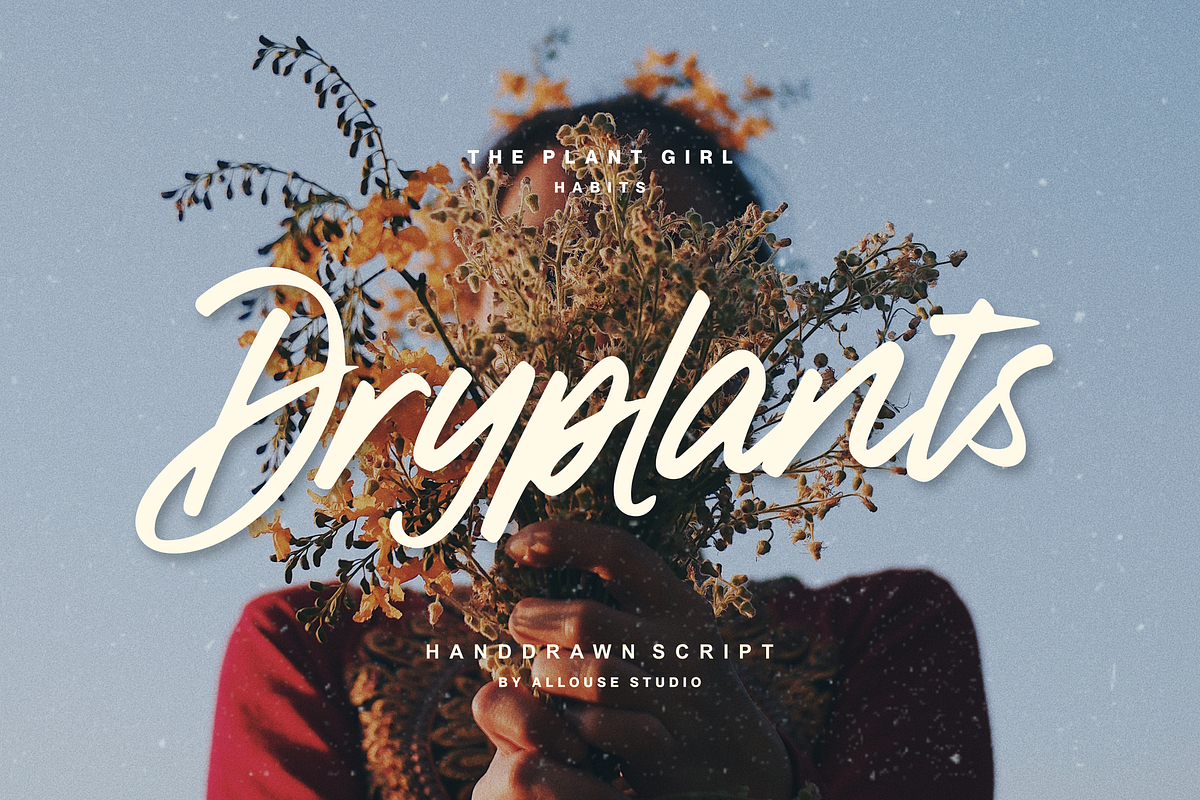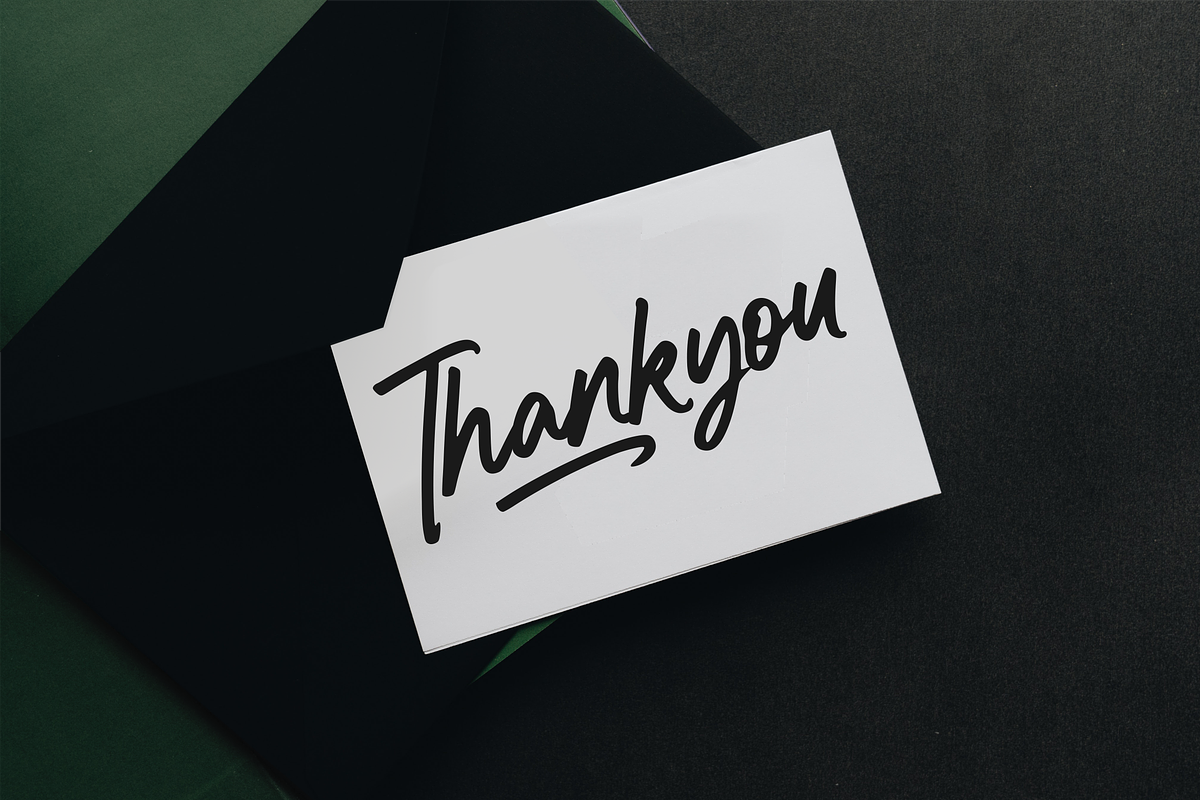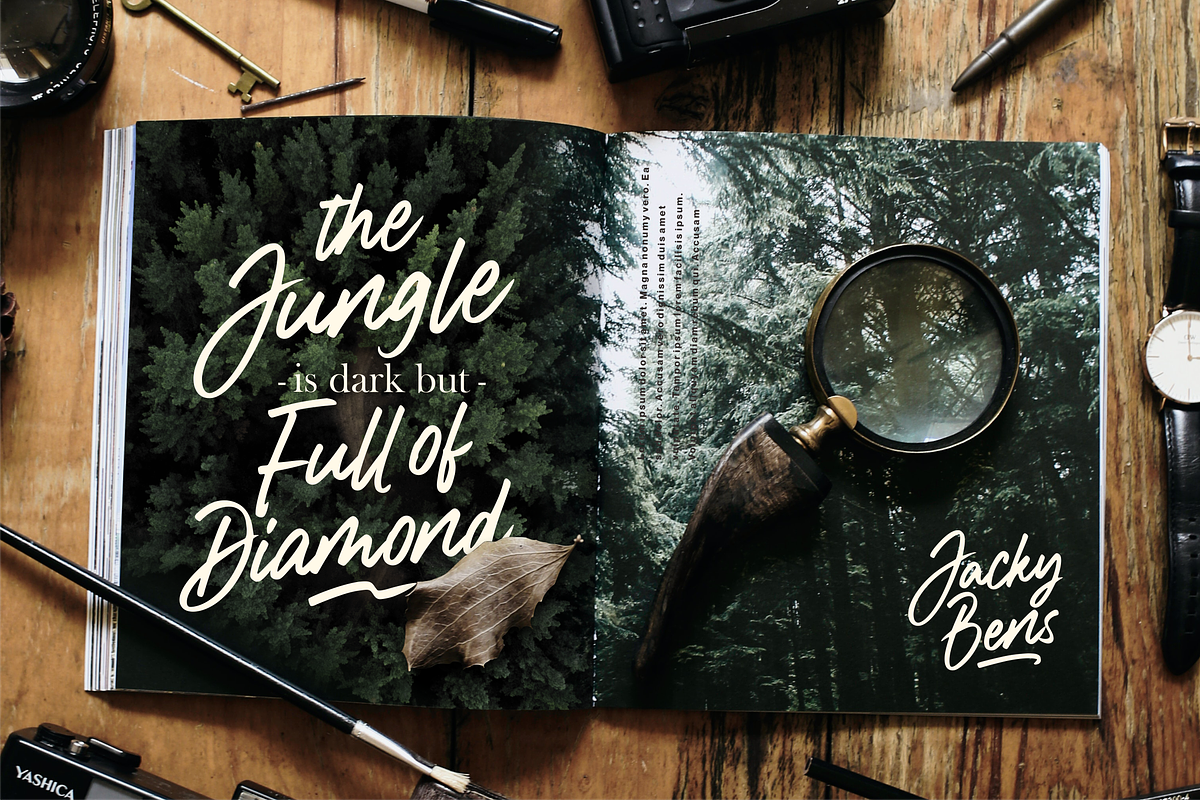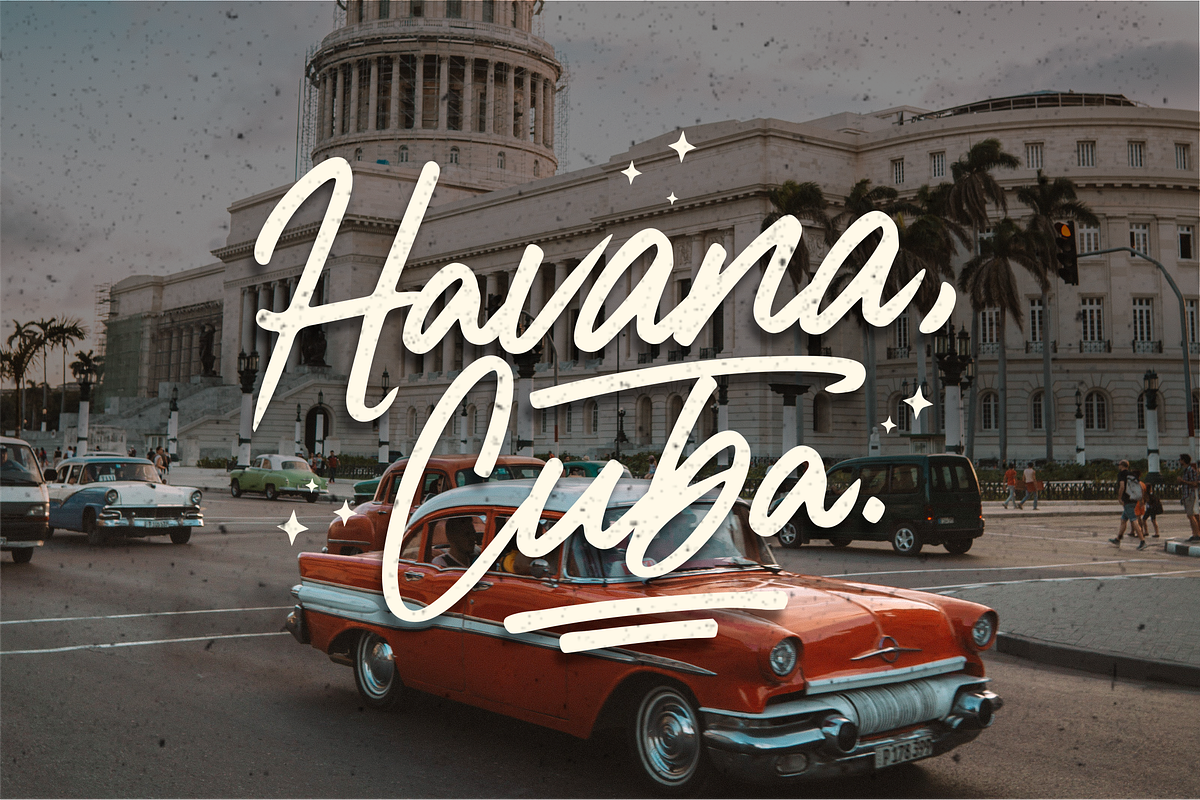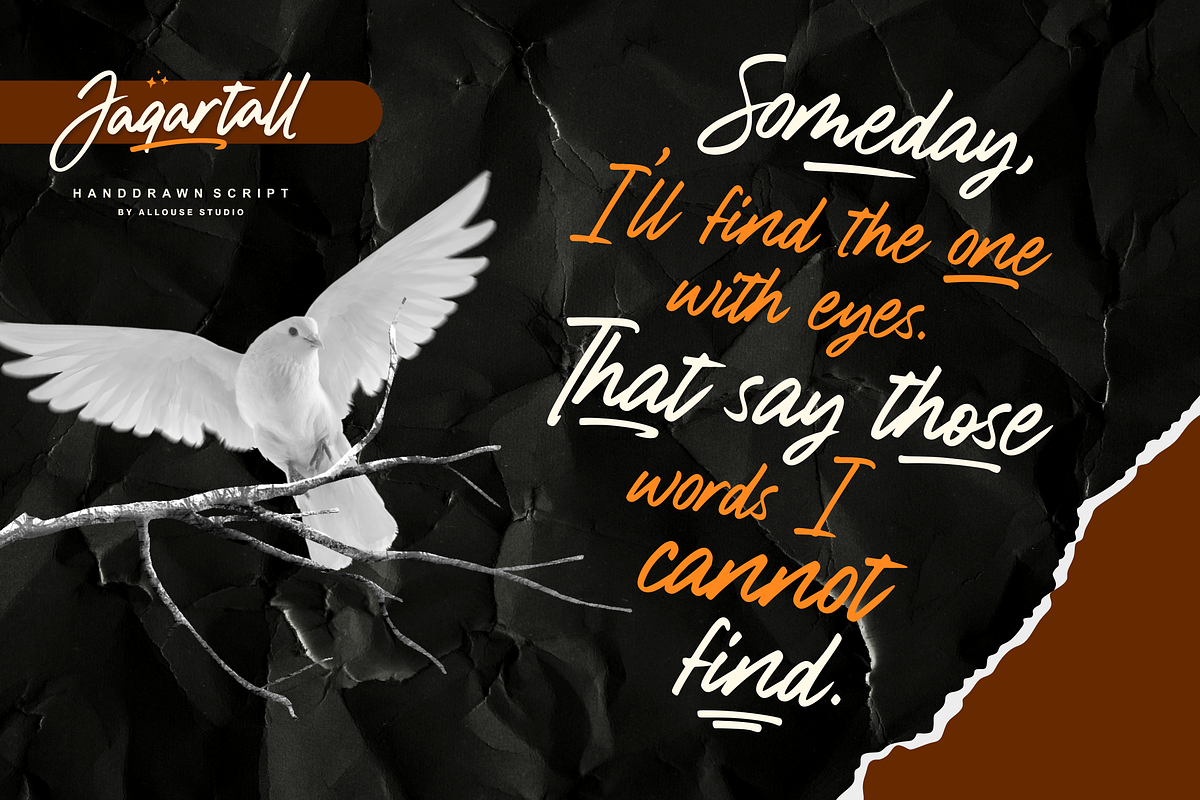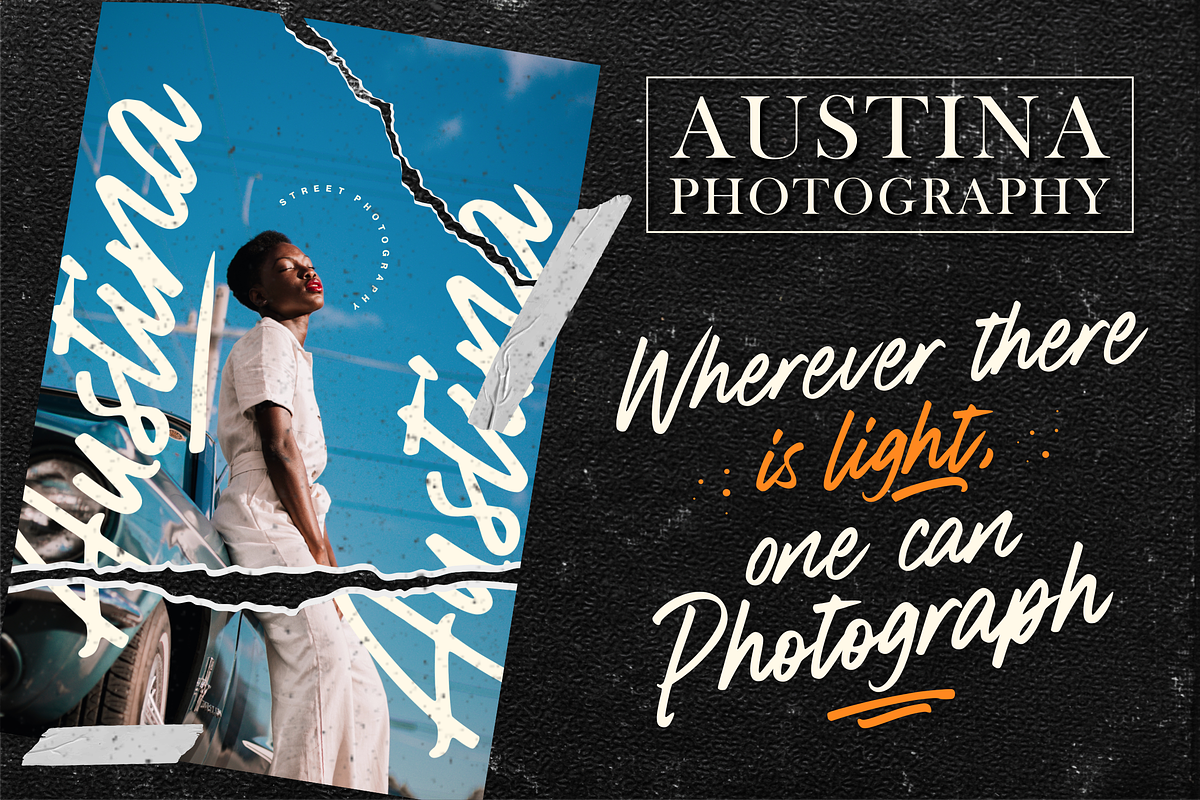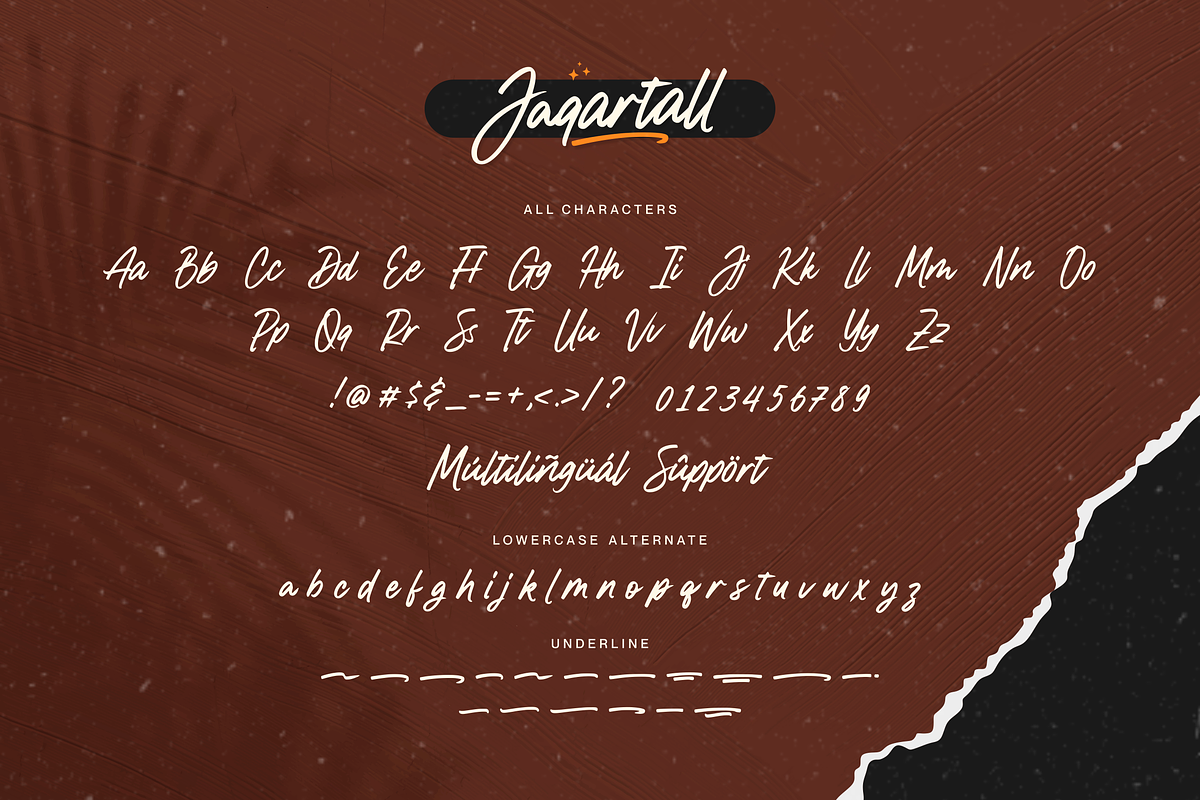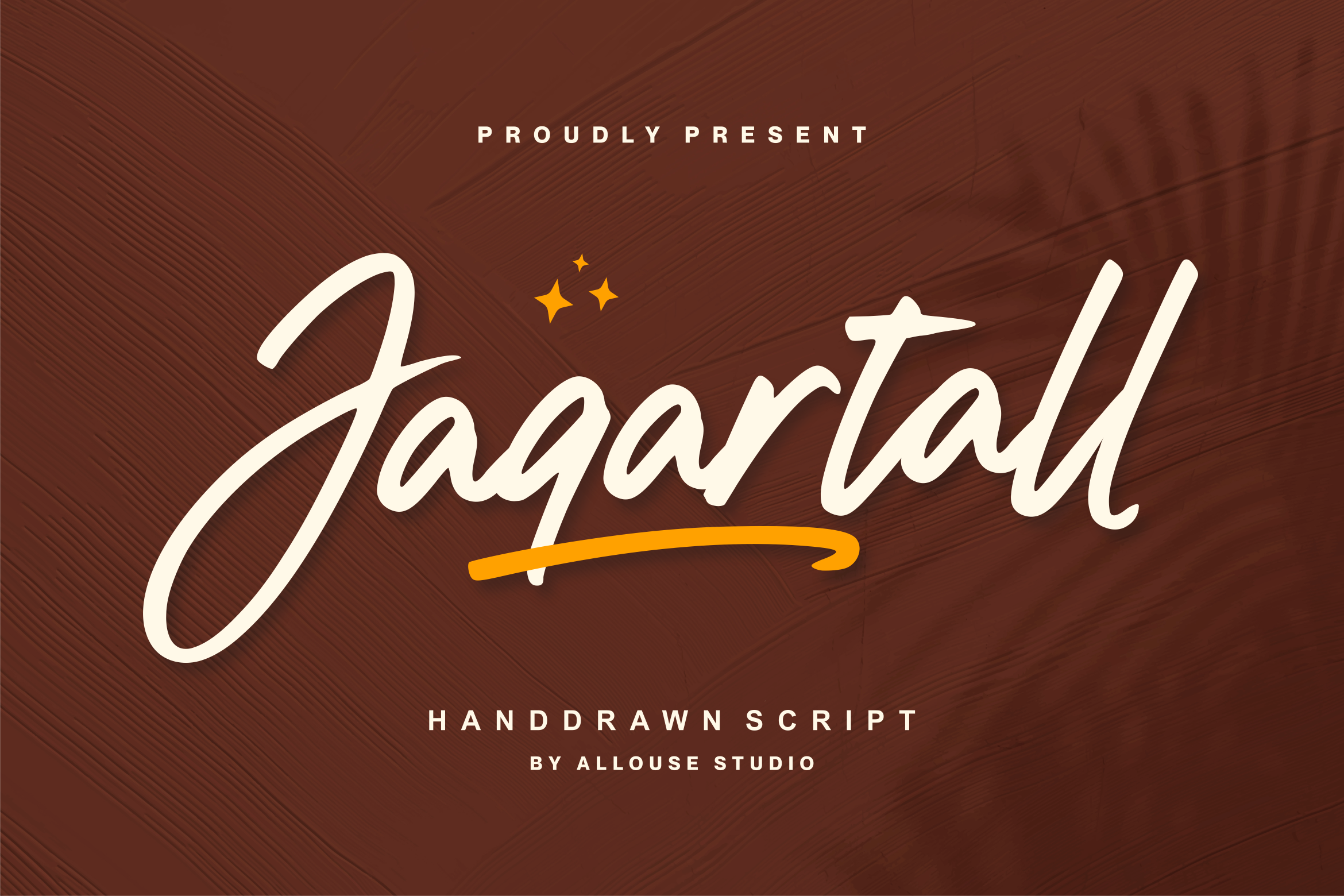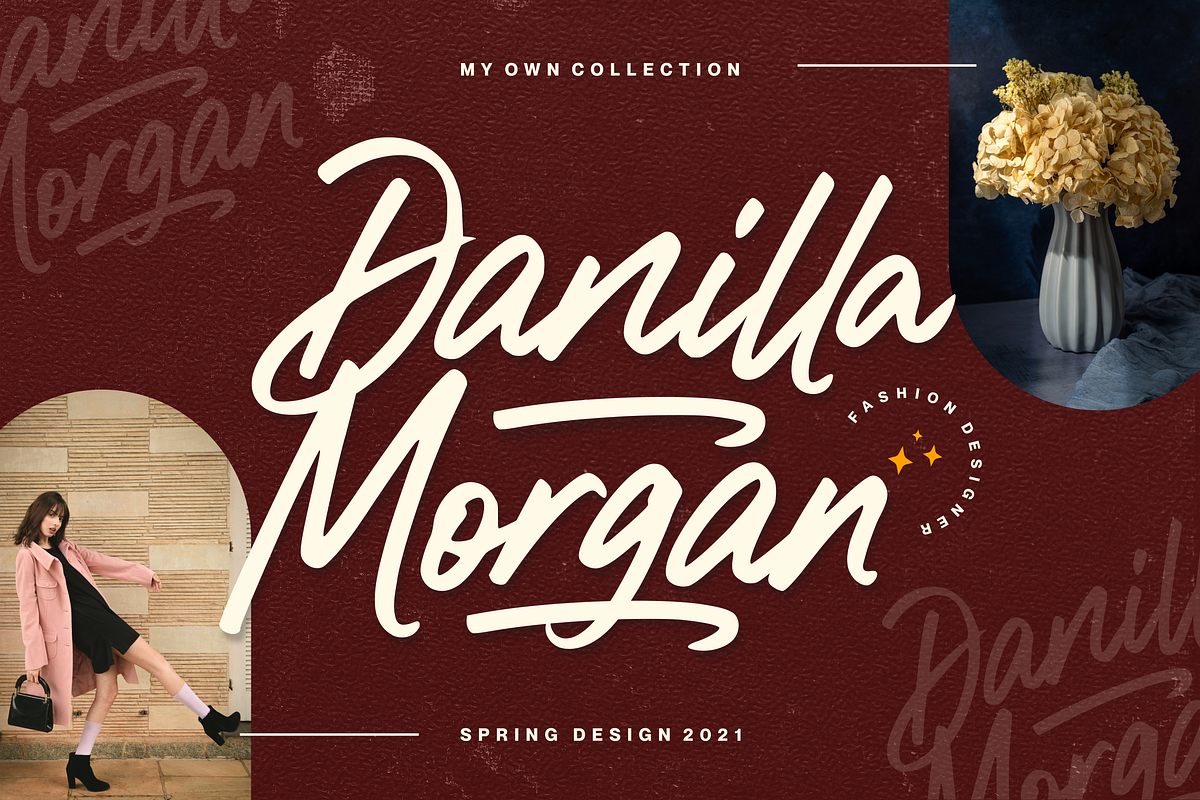
Jaqartall Hand Drawn Script Font
Proudly Presenting, Jaqartall A Handdrawn Script Font.
Jaqartall is perfect for any titles, logo, product packaging, branding project, megazine, social media, wedding, or just used to express words above the background.
Jaqartall also come with Multi-Lingual Support.